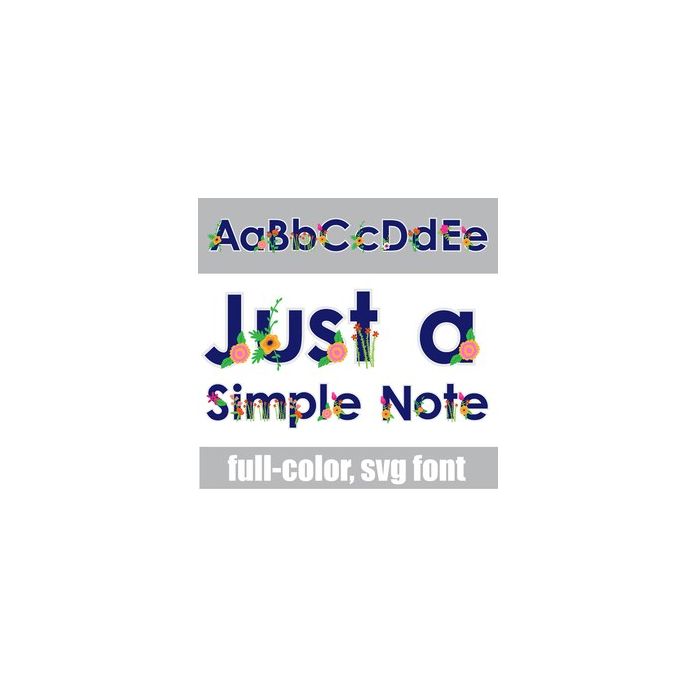
This full-color font features blue, sans serif lettering with an array of florals. There is an alt case w/ additional colors you can access through your system or Silhouette's glyph map.